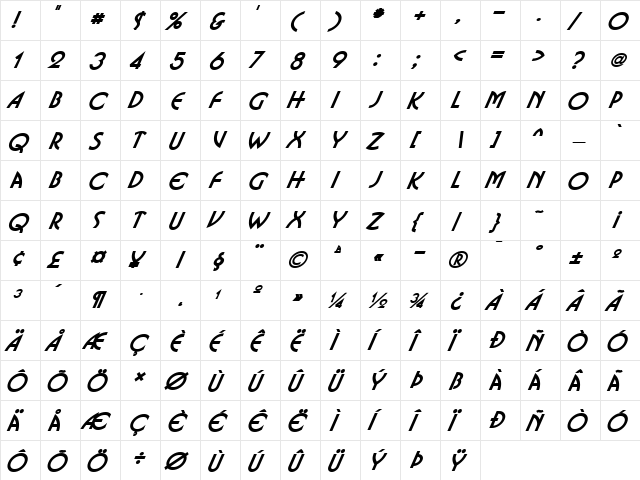
Busso BoldItalic
Design Context for Busso Typeface
Busso is a composed and adaptable typeface that performs quietly and consistently across a wide range of design contexts. Its italic angle brings a sense of urgency and motion to the letterforms. The heavy weight commands attention and anchors typographic hierarchies.